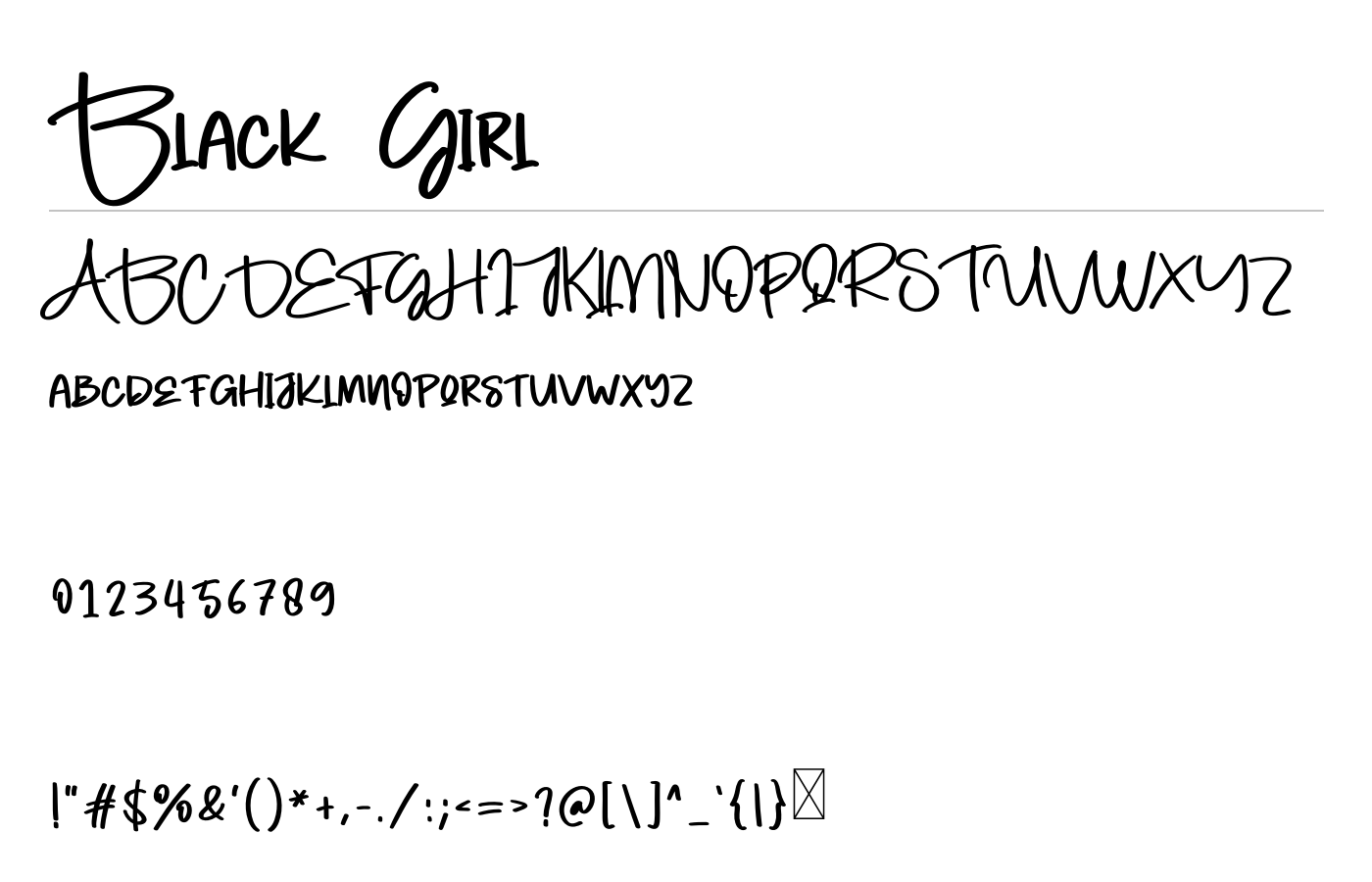
Black Girl Font is a playful, casual handwritten script that features a lively, uneven stroke style with tall, narrow letterforms and a high x-height. Its informal, friendly character makes it perfect for creative projects, young audiences, and brands seeking a relaxed, approachable vibe. This font works well in headlines, logos, and invitations where a personal, energetic touch is desired.
Black Girl Font
About Black Girl Font